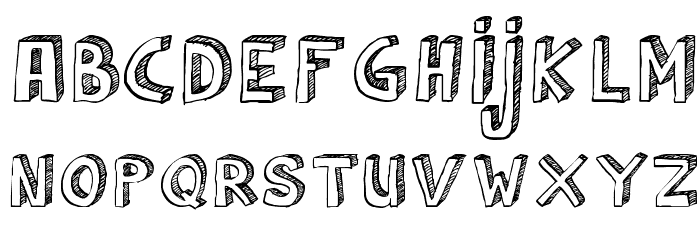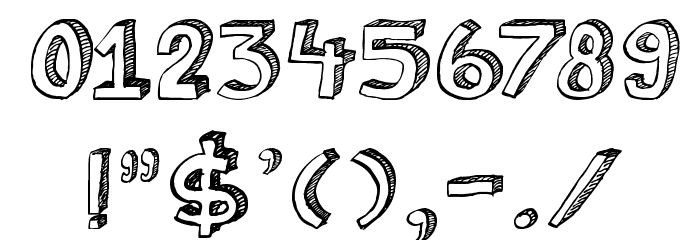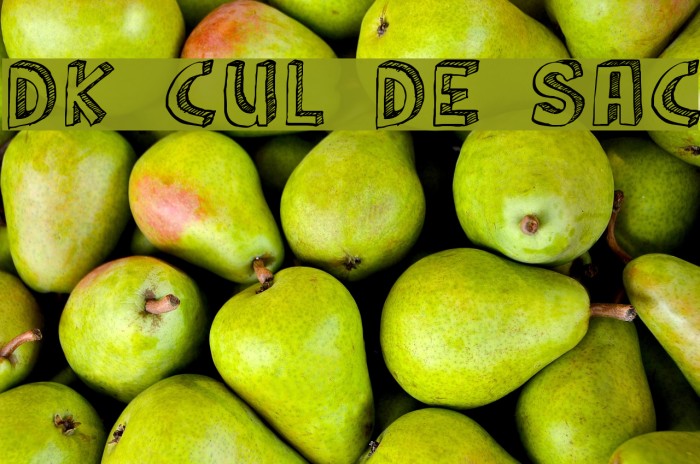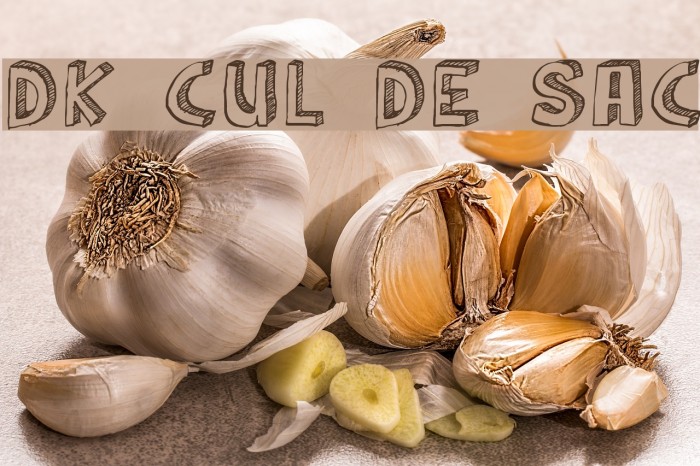
DK Cul De Sac Font
This font features a playful and hand-drawn style, characterized by its bold, sketch-like appearance. Each letter is outlined with a rough, textured edge, giving it a casual and artistic feel. The uppercase and lowercase letters maintain a consistent style, with a slightly irregular form that adds to its charm. Numbers and special characters follow the same design, ensuring a cohesive look across all elements. The font's unique aesthetic makes it stand out, perfect for projects that require a creative and informal touch.
A bold, hand-drawn font with a playful, sketch-like appearance.
- Proposed Projects: Ideal for children's books, comic strips, playful branding, and creative posters.
- Overall Style: Playful, Artistic, Casual
- Use Case: Headlines, Posters, Creative Branding